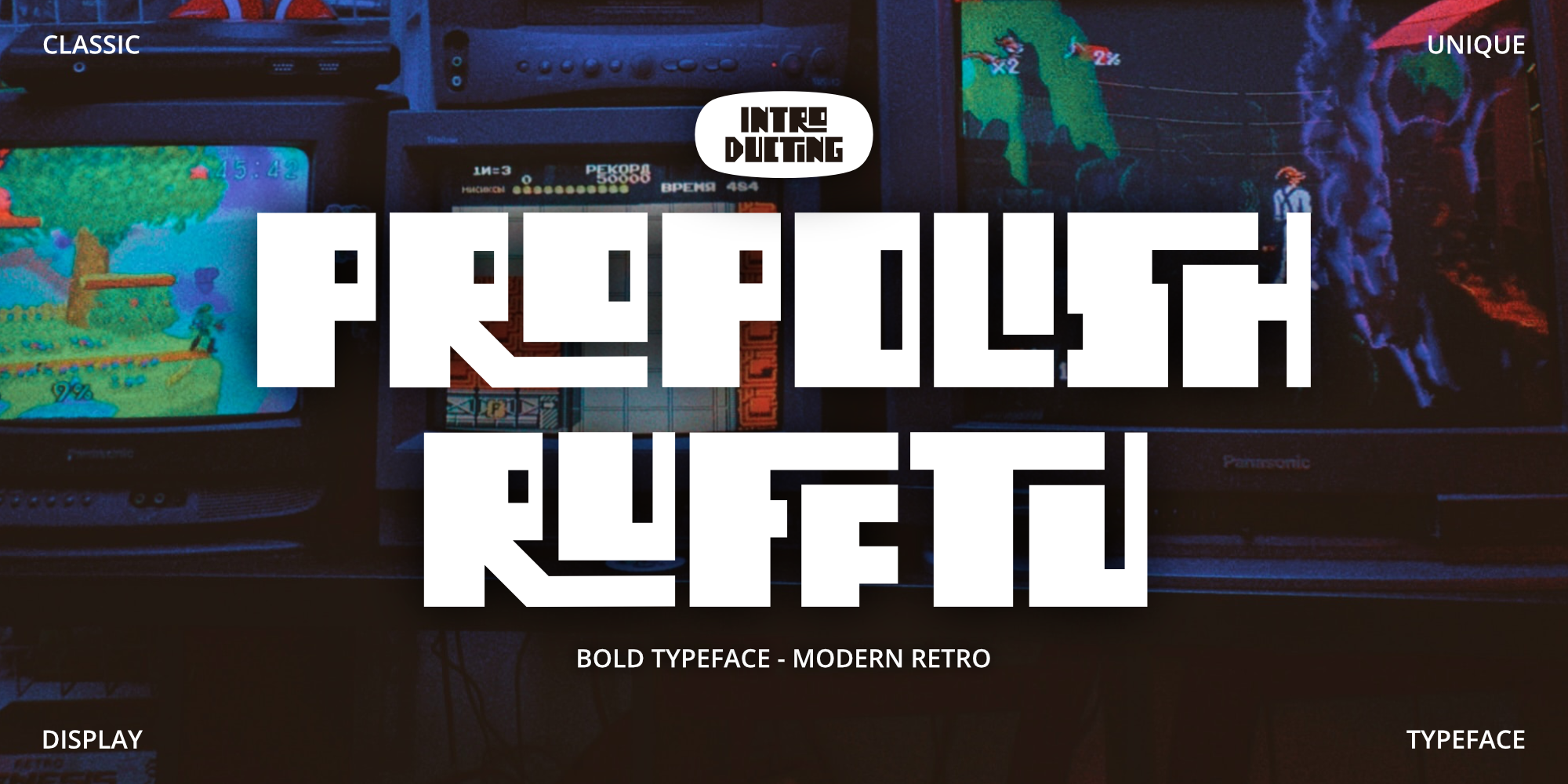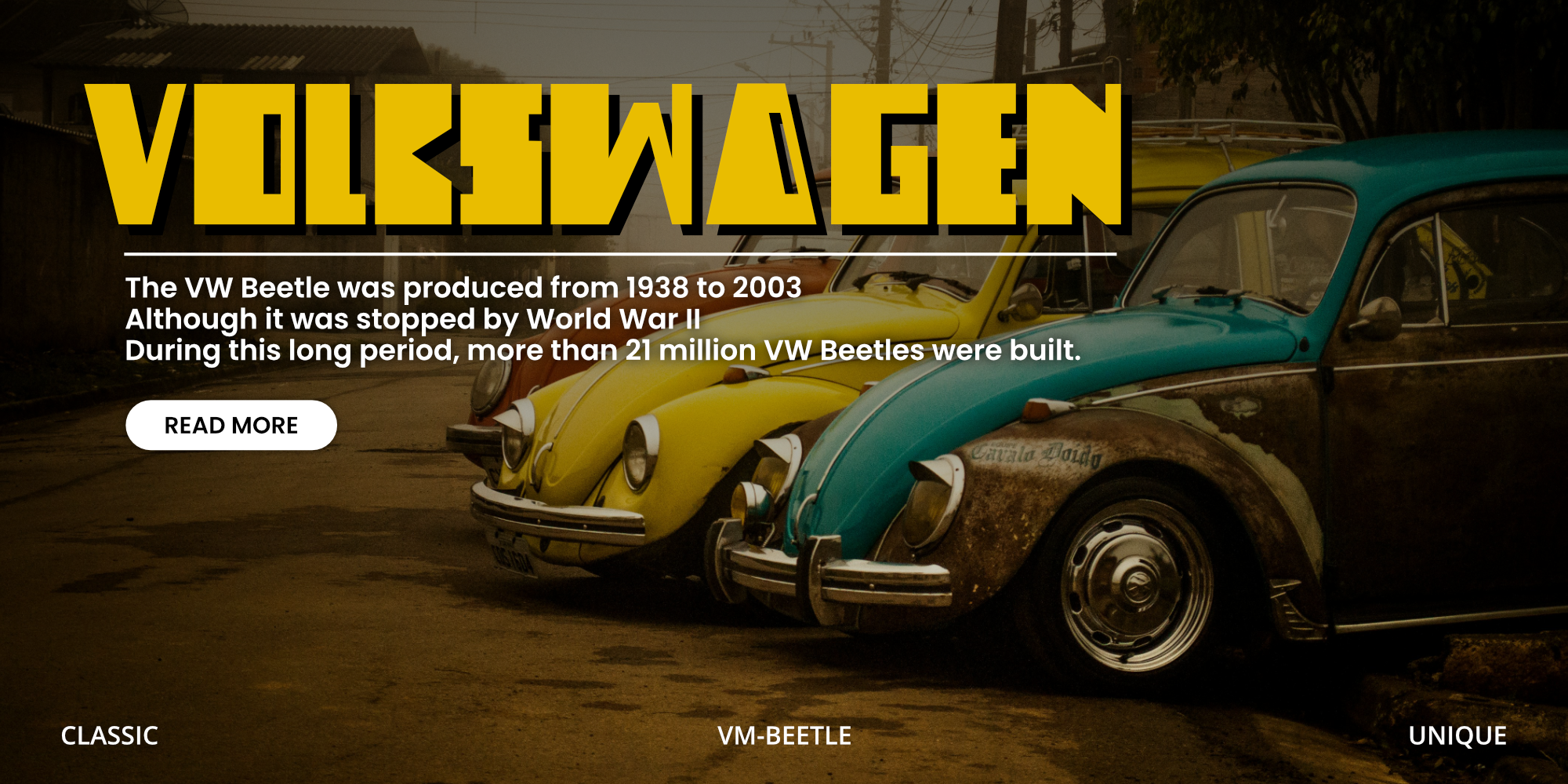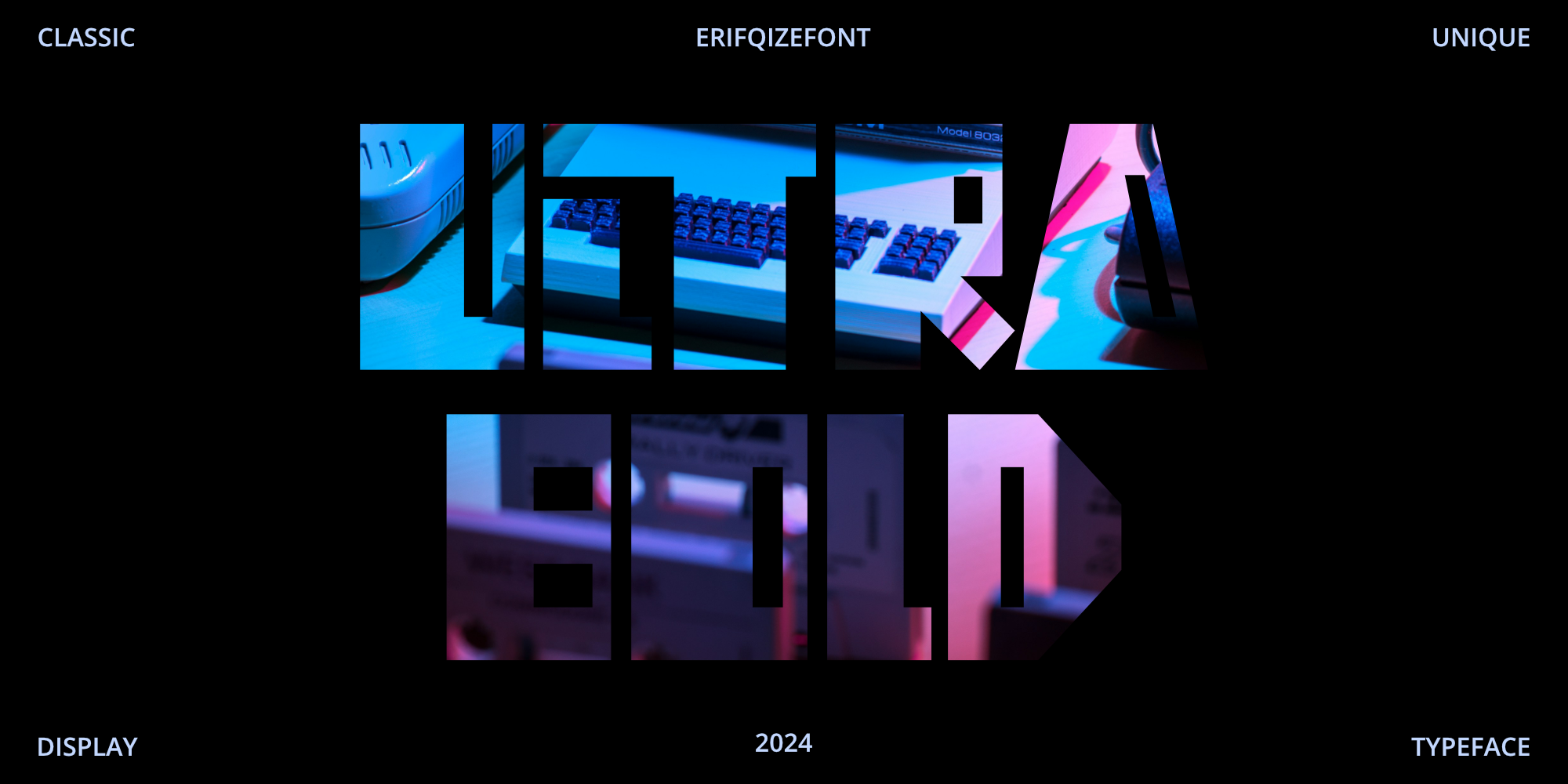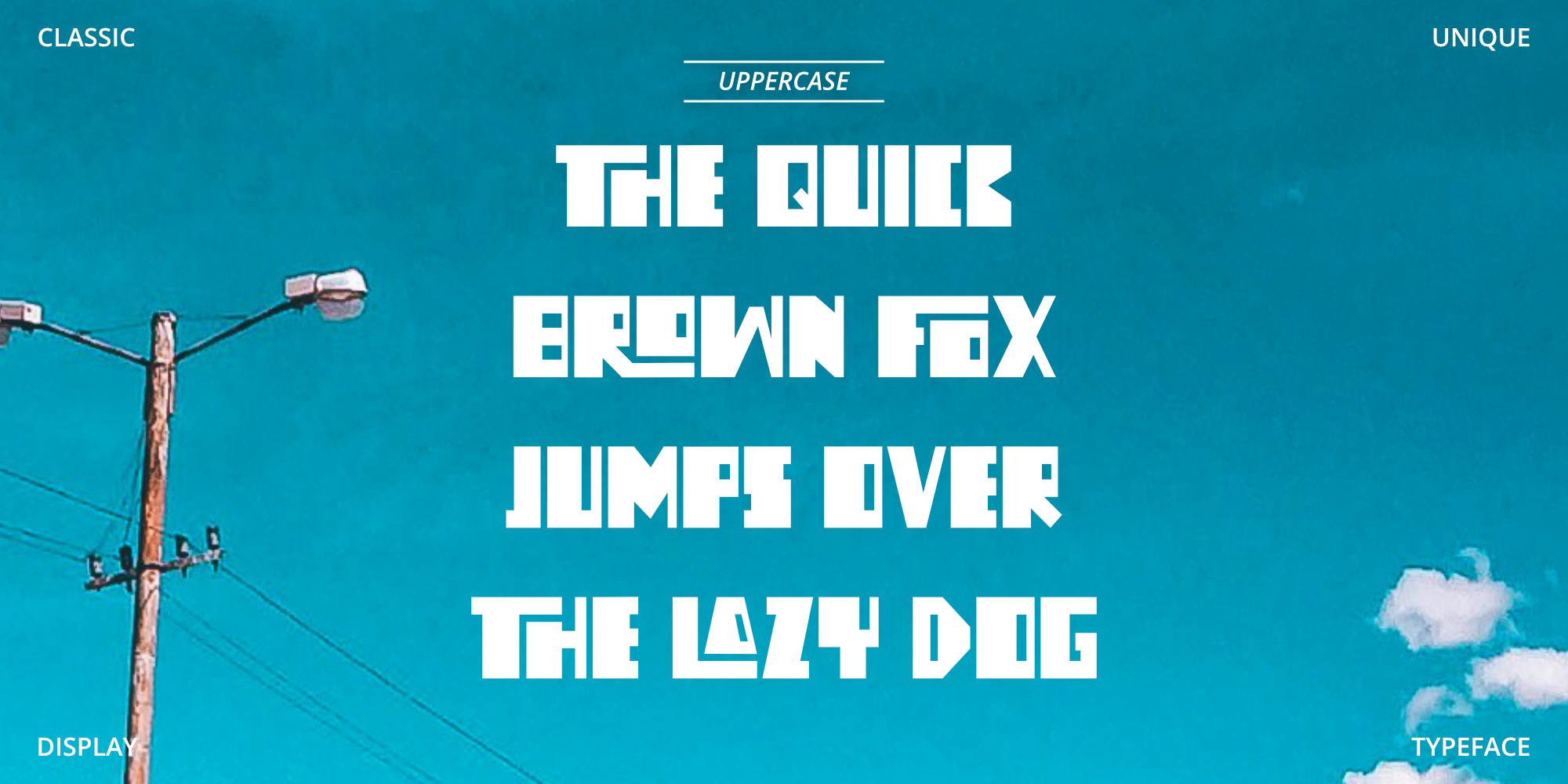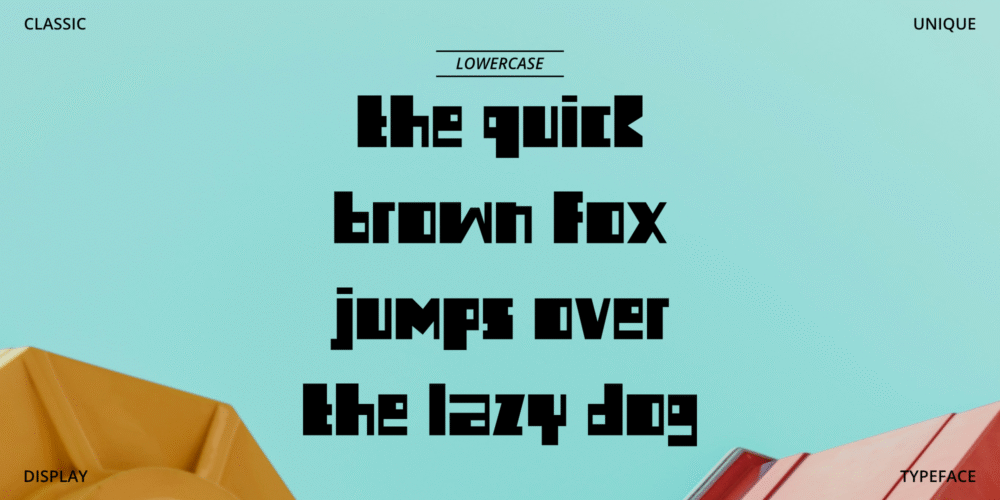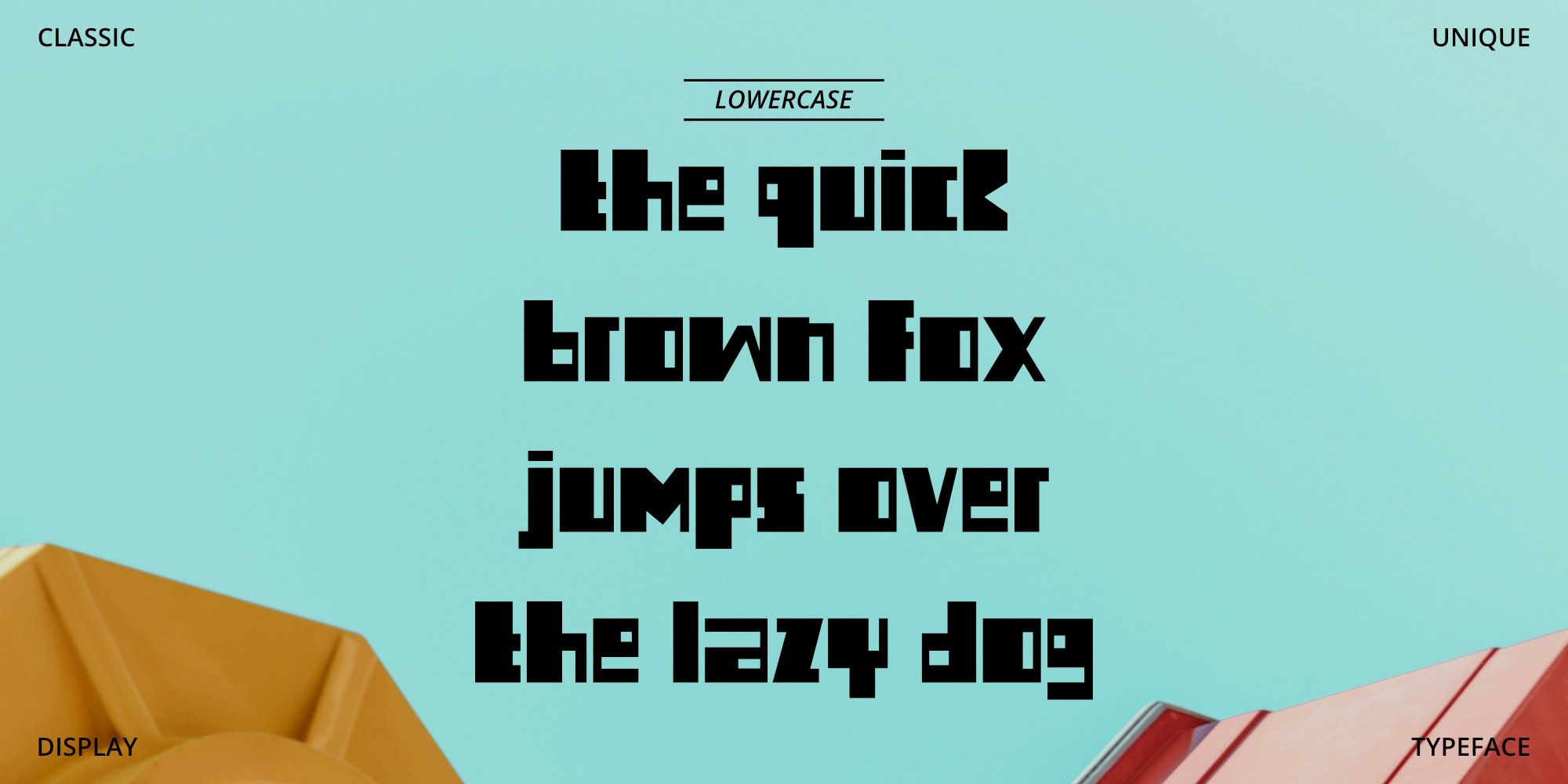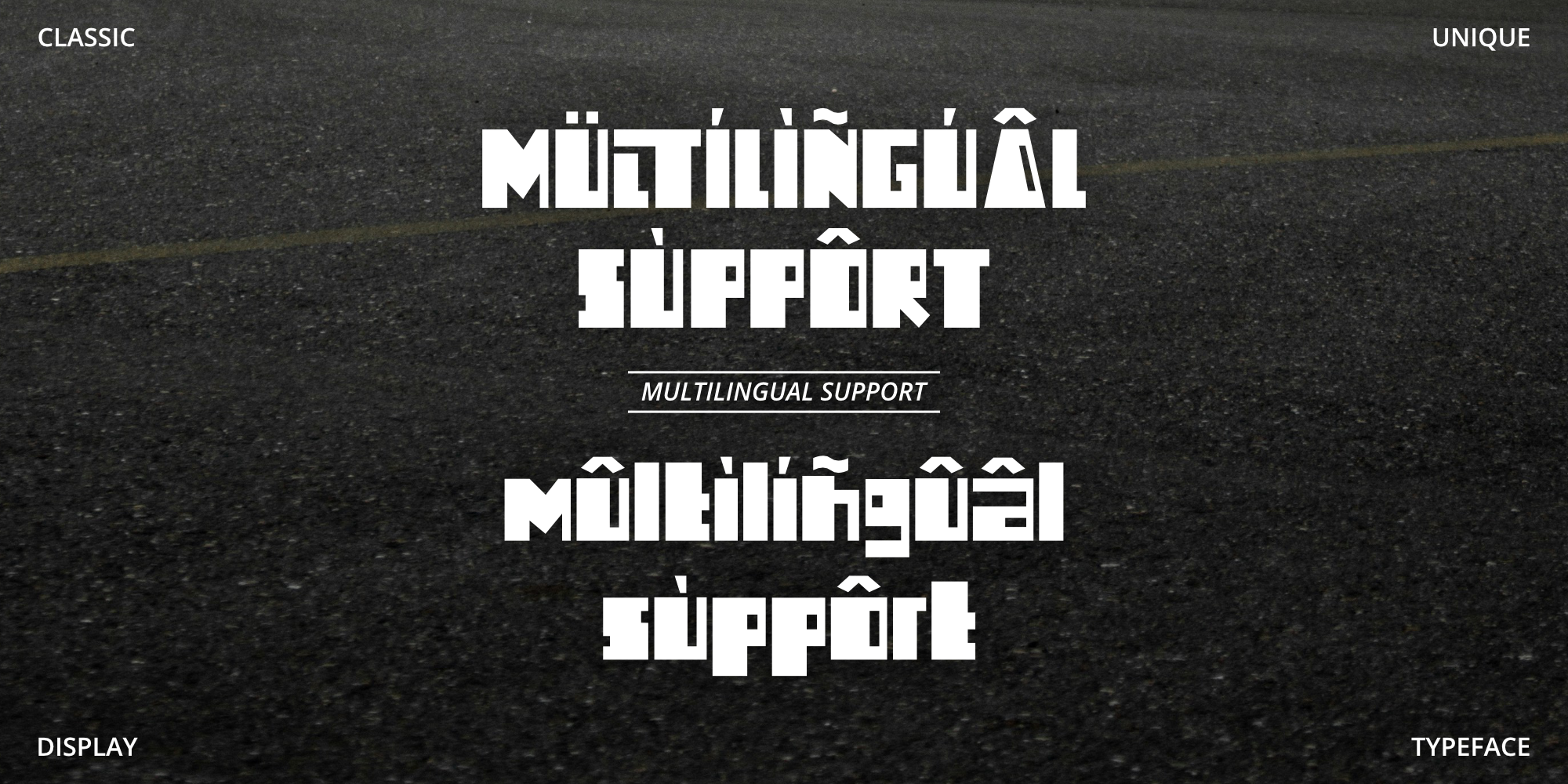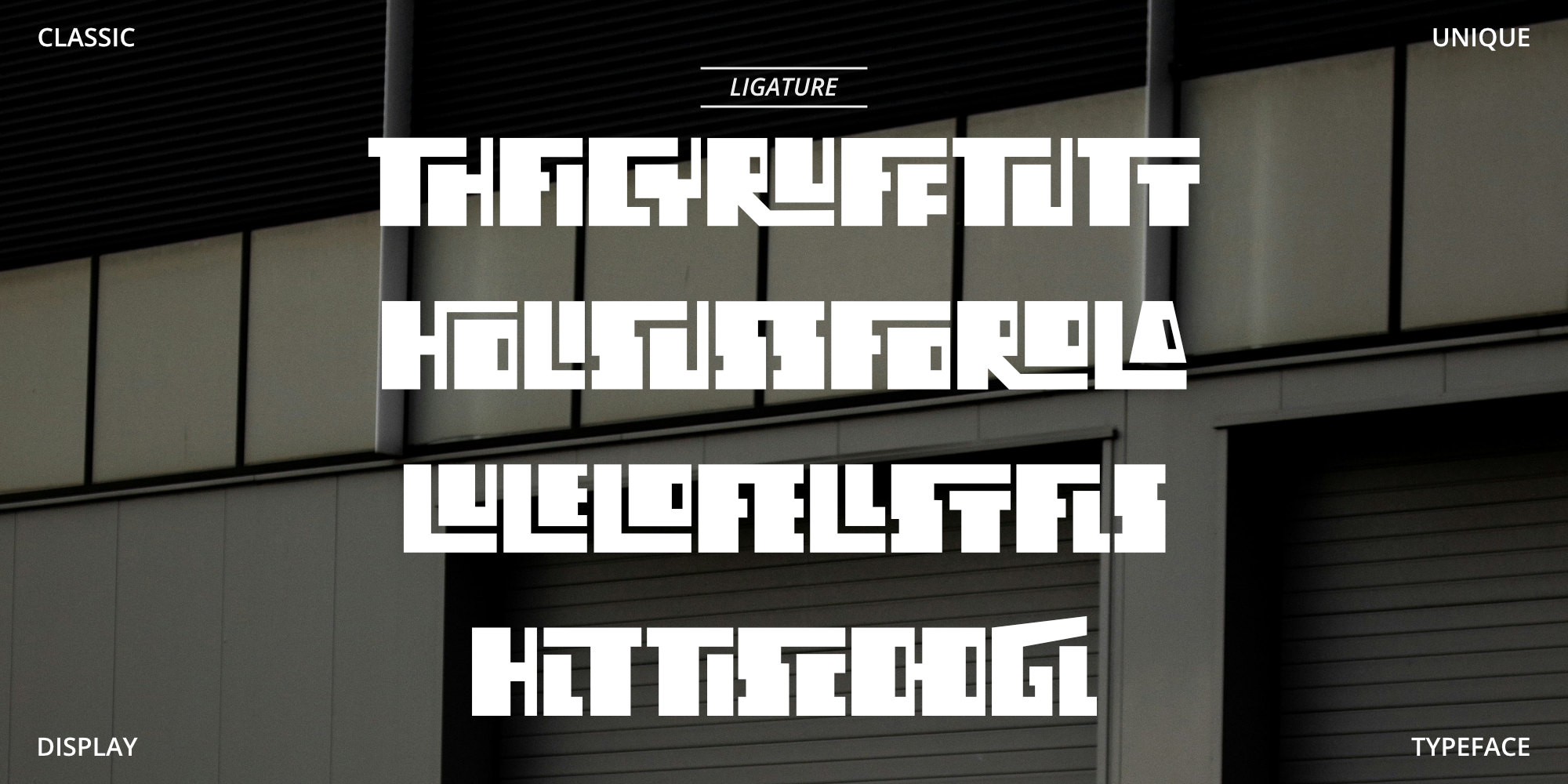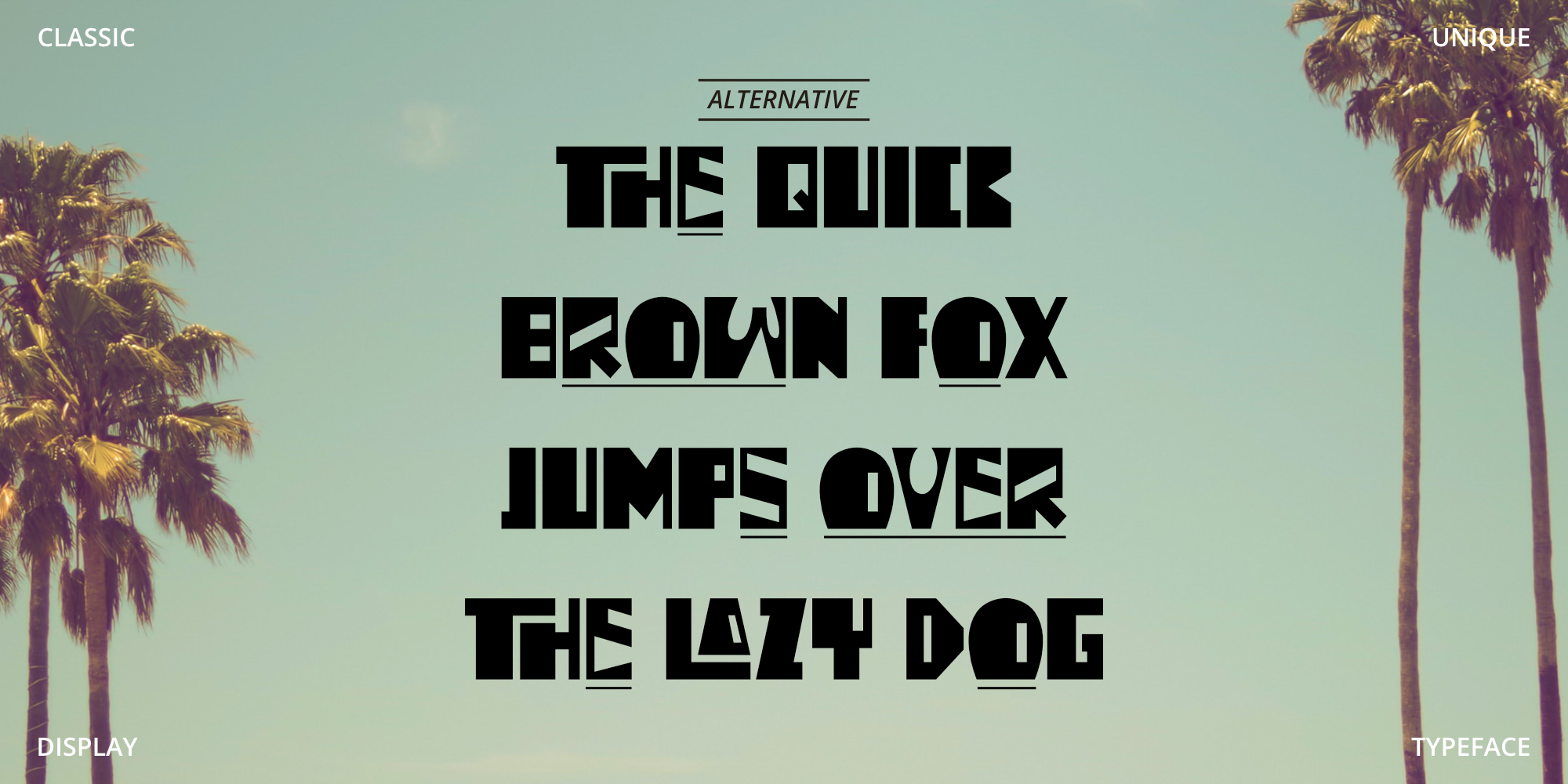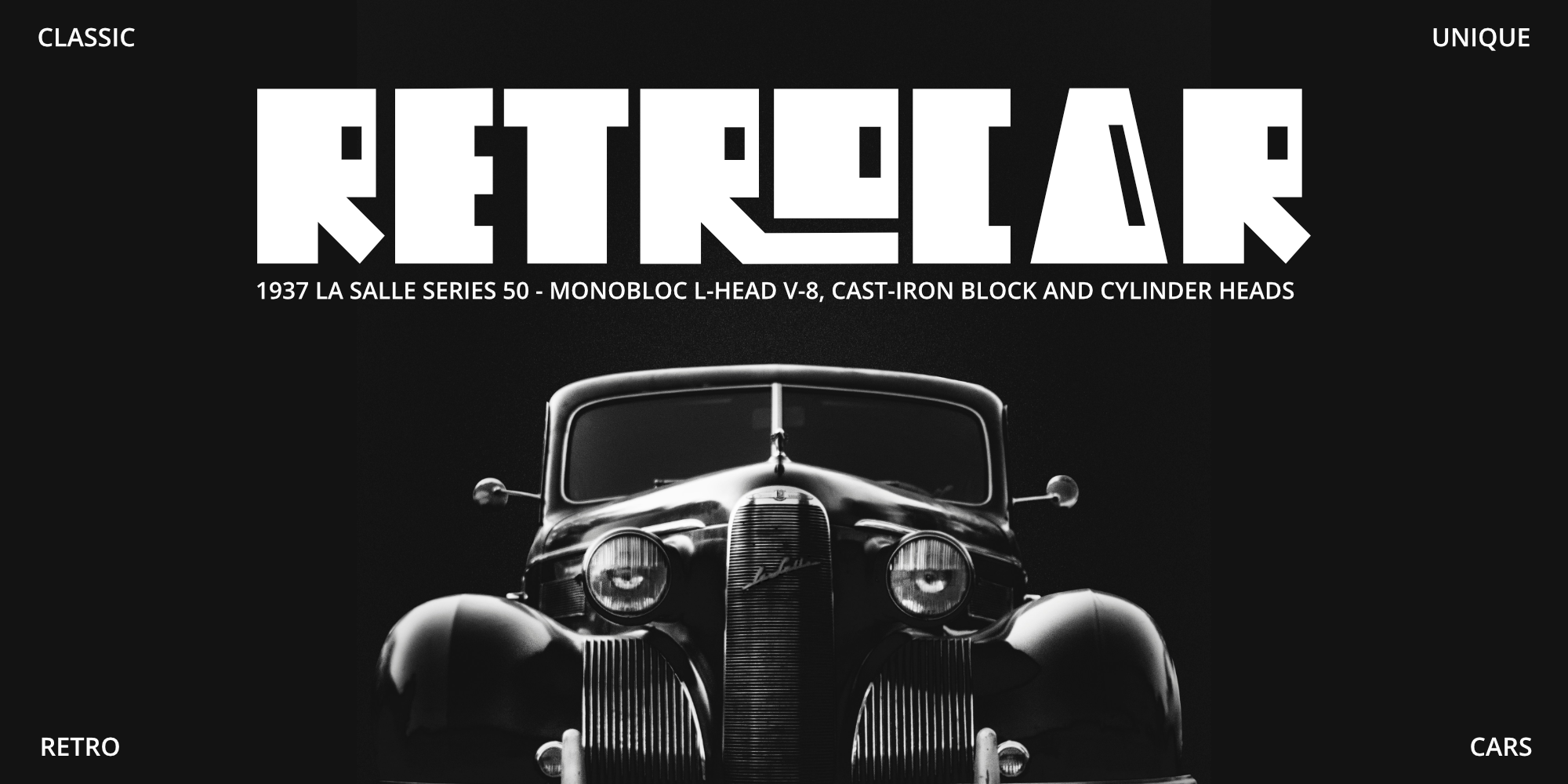
Propolish Rufftu
INTRODUCING PROPOLISH RUFFTU
Propolish Rufftu is a captivating display font that radiates rugged charm and bold personality. With its strong lines and distinctive letterforms, this font instantly grabs attention and adds a powerful edge to your designs. Perfect for branding, headlines, posters, and creative projects that demand a striking visual impact, Propolish Rufftu delivers a unique and edgy aesthetic that makes your work stand out effortlessly.
Propolish Rufftu – Retro Ligature Fonts
Propolish Rufftu is a captivating display font that radiates rugged charm and bold personality.